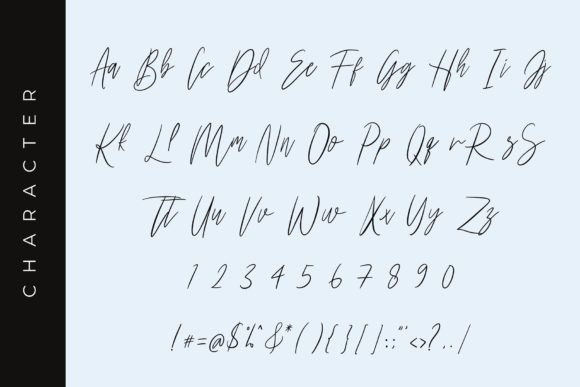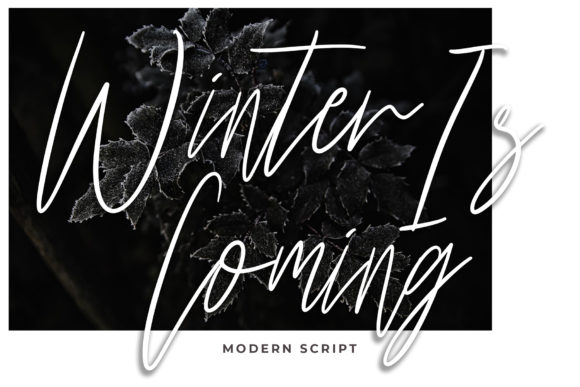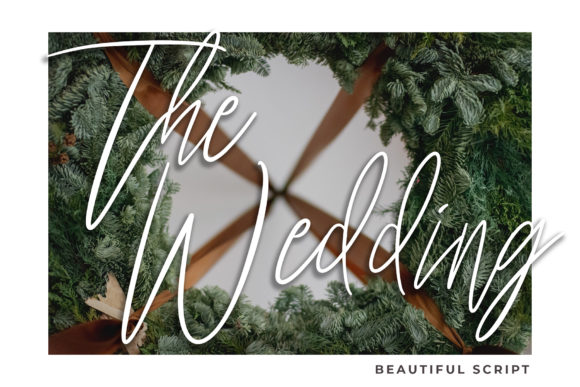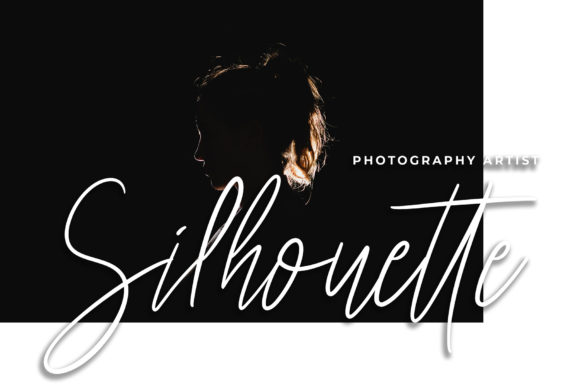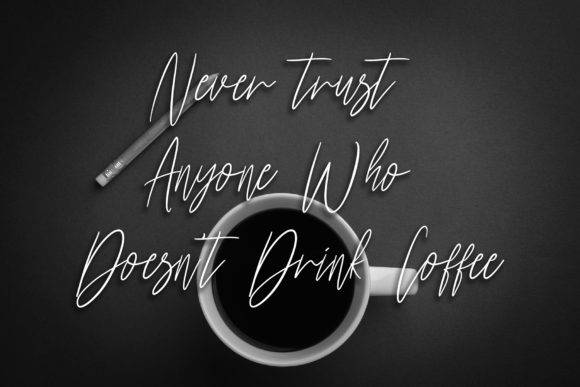
Discover the Charm of Harritton Font: Elevate Your Designs with its Unique and Timeless Style
In the world of typography, fonts play a crucial role in conveying the tone and personality of a design. Among the numerous fonts available, Harritton Font stands out for its distinctive and timeless handwritten style. This versatile font has captured the hearts of designers and crafters alike, and for good reason. In this article, we’ll explore the beauty of Harritton Font and how it can elevate your designs, from wedding invitations to social media posts.
The Unique Character of Harritton Font
Harritton Font boasts an incredibly versatile style that can add a touch of elegance and sophistication to any design. Its handwritten nature gives it a personal and intimate feel, making it perfect for projects that require a human touch. The font’s unique character is characterized by its flowing lines, subtle imperfections, and charming letterforms. Each letter is carefully crafted to create a sense of movement and fluidity, making it a joy to read and behold.
Endless Design Possibilities with Harritton Font
One of the most significant advantages of Harritton Font is its incredible versatility. Its adaptability makes it suitable for a wide range of design applications, including:
- Wedding Invitations: Create stunning wedding invitations that set the tone for a romantic and memorable celebration. Harritton Font’s elegant style makes it perfect for formal and informal wedding stationery.
- Stationary Art: Add a touch of personality to your stationery with Harritton Font. Use it to create beautiful journals, greeting cards, and letters that showcase your unique style.
- Social Media Posts: Elevate your social media presence with eye-catching posts that feature Harritton Font. Its playful and charming nature makes it perfect for grabbing the attention of your audience.
- Branding and Packaging: Use Harritton Font to create a distinctive brand identity that reflects your values and personality. Its versatility makes it suitable for a wide range of industries, from fashion to food and beverage.
Why Designers and Crafters Love Harritton Font
Harritton Font has become a favorite among designers and crafters due to its unique combination of style, versatility, and ease of use. Here are just a few reasons why:
- Easy to Read: Harritton Font is incredibly legible, making it perfect for body text and headlines.
- Highly Customizable: The font’s versatility allows you to experiment with different styles, colors, and textures to create a unique look that suits your design.
- Timeless Appeal: Unlike trendy fonts that quickly go out of style, Harritton Font’s classic nature ensures it will remain relevant for years to come.
Tips for Getting the Most Out of Harritton Font
To maximize the potential of Harritton Font, consider the following tips:
- Experiment with Colors: Play with different colors and textures to add depth and interest to your design.
- Mix and Match: Combine Harritton Font with other fonts to create a unique and visually appealing typography.
- Pay Attention to Spacing: Ensure that your text is well-spaced and easy to read to maximize the font’s legibility.
Harritton Font is a true gem in the world of typography. Its unique and timeless handwritten style makes it perfect for designers and crafters looking to add a touch of elegance and sophistication to their designs. With its incredible versatility and ease of use, Harritton Font is sure to become a staple in your design toolkit. So why wait? Fall in love with Harritton Font and discover a world of design possibilities!